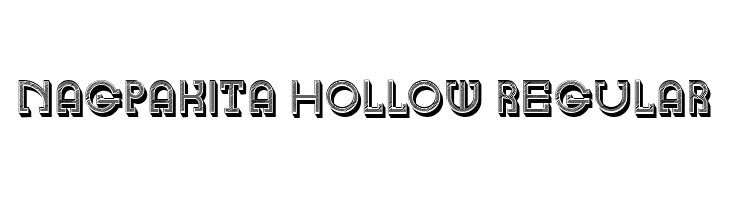
A bold, hollow font with a three-dimensional effect and vintage-modern style.
A bold, geometric font with a 3D effect, ideal for impactful designs.
A bold, three-dimensional font with geometric shapes and a modern feel.